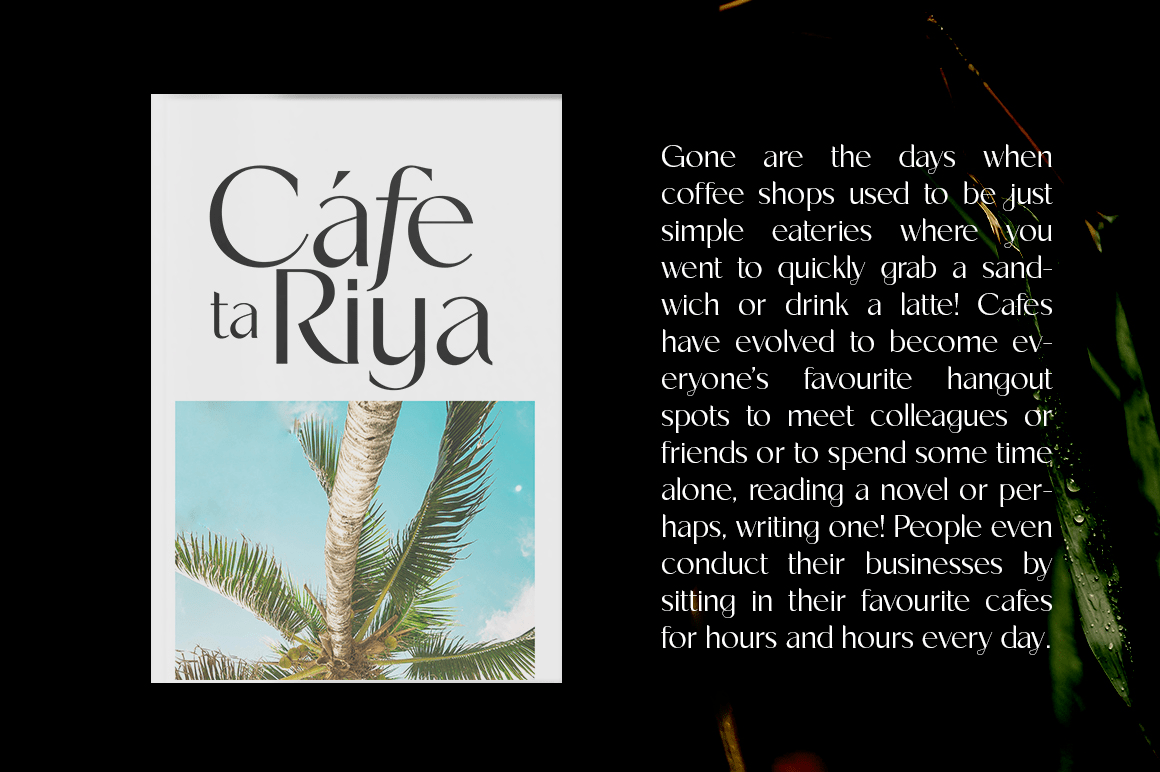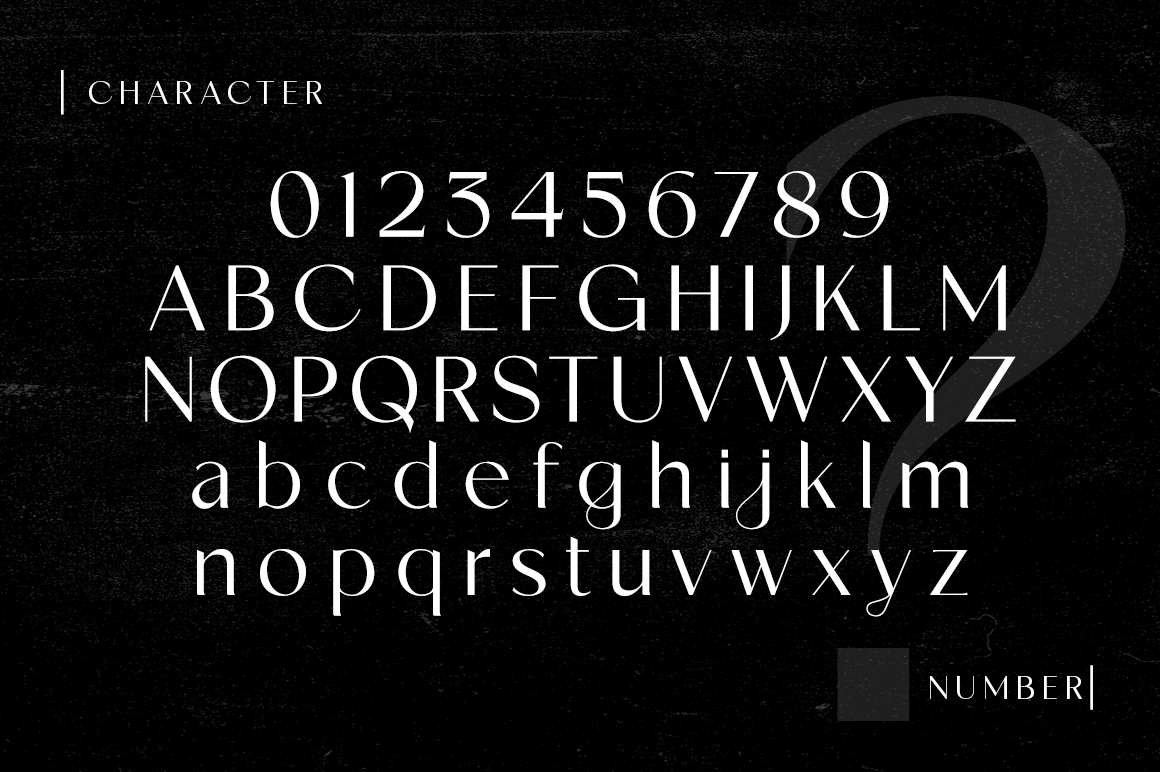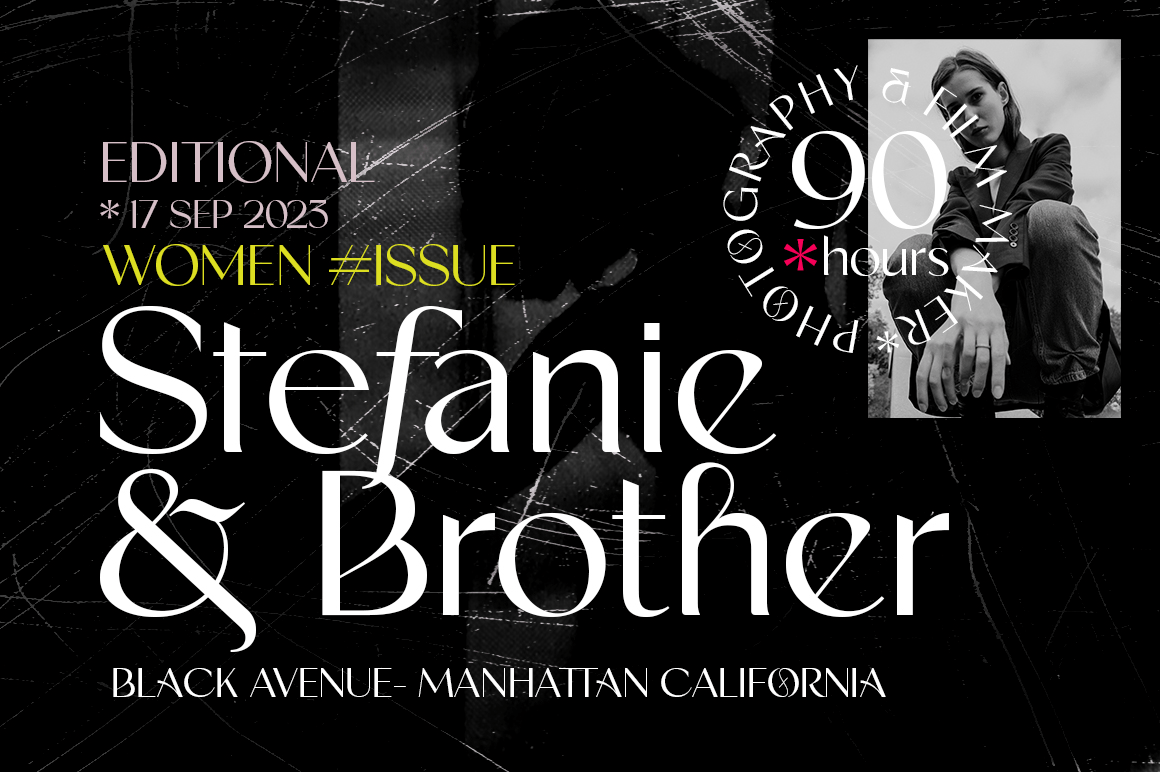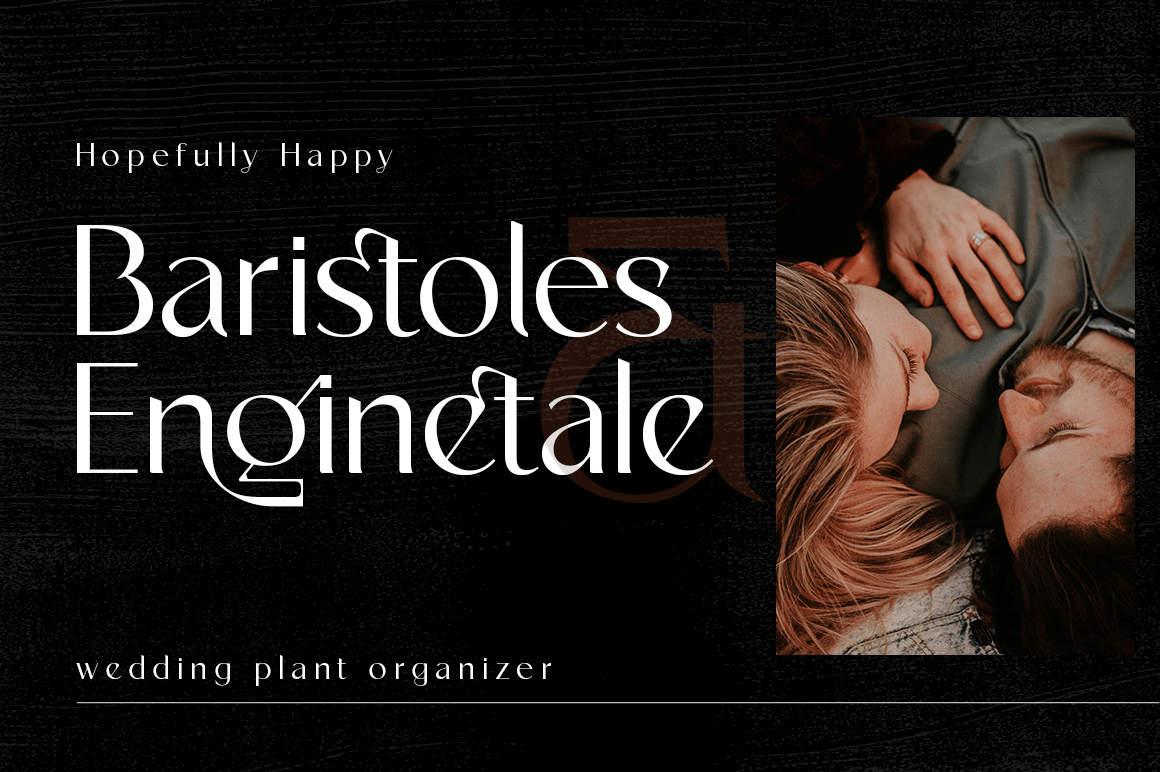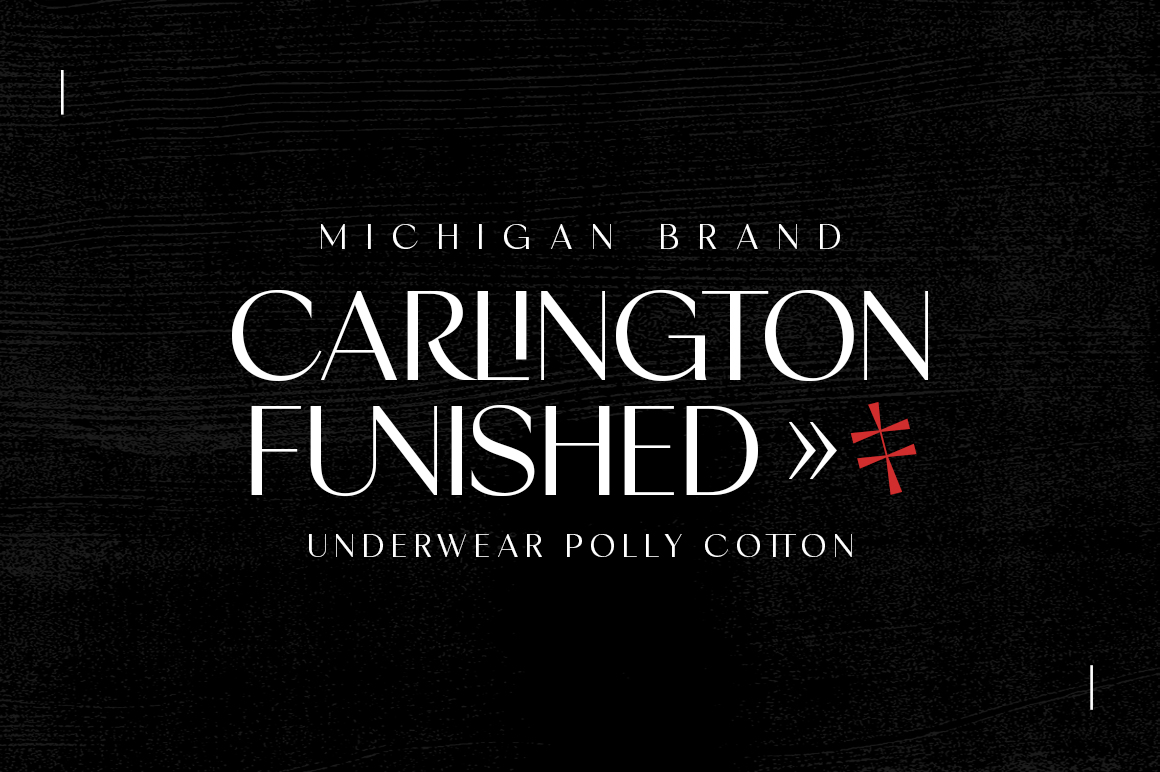
About Moutyara
Moutyara ? New Stylish Sans Serif Font with Fancy Curves. A very versatile font that works both large and small. With its angular shape, it is practical while maintaining elegance and boldness. Moutyara is perfect for logo design, magazine headlines,…